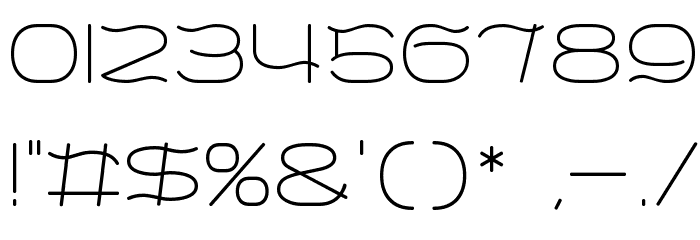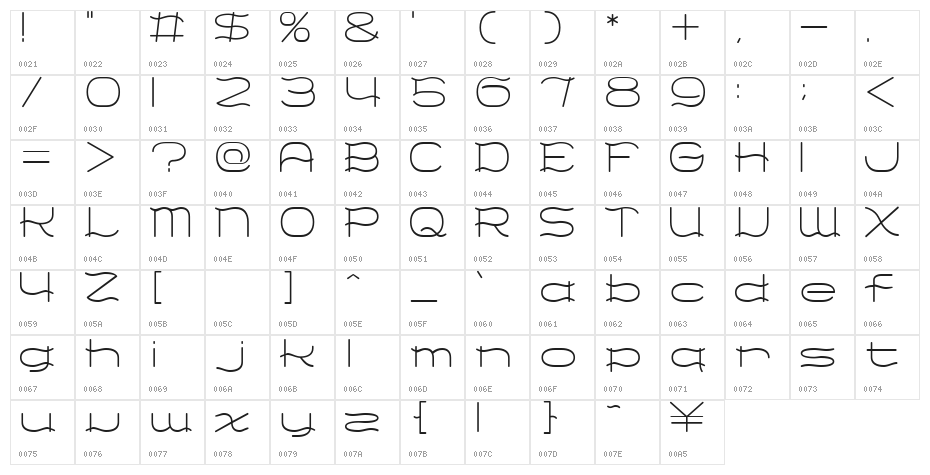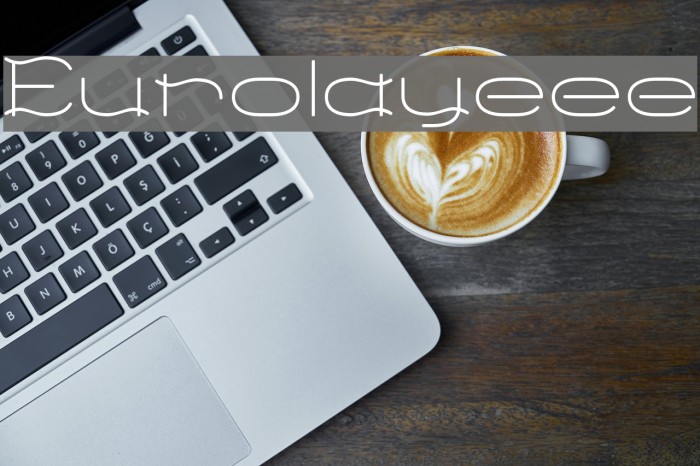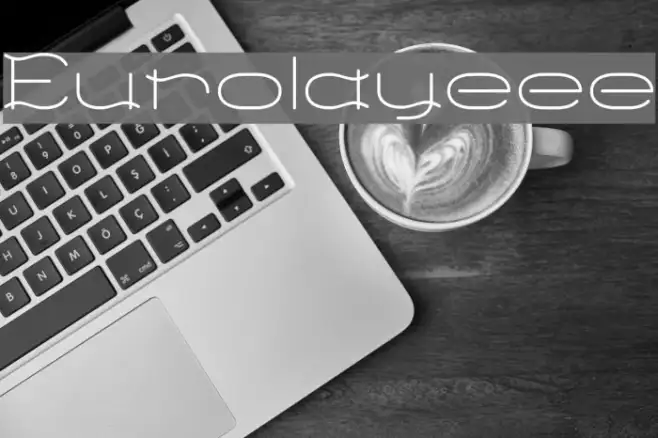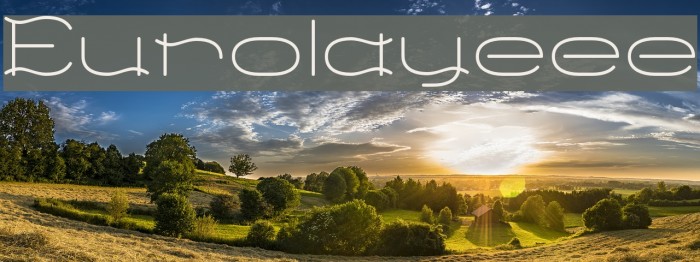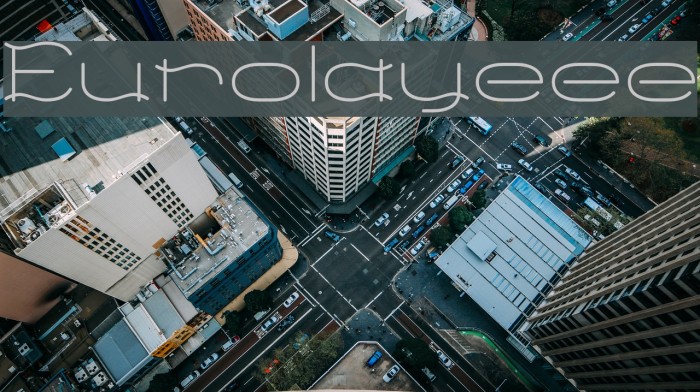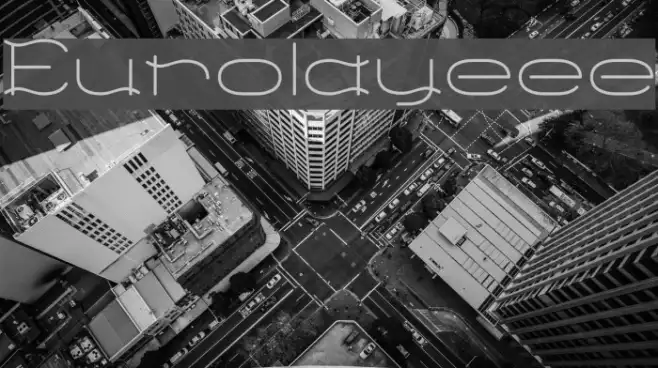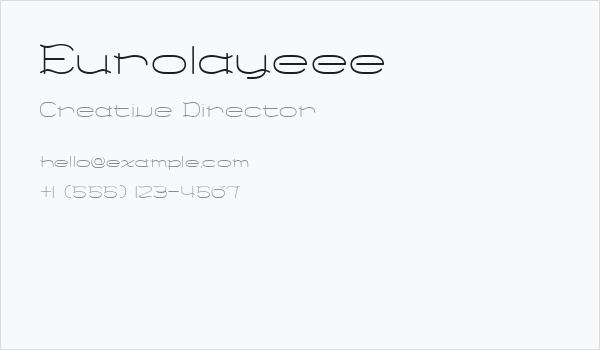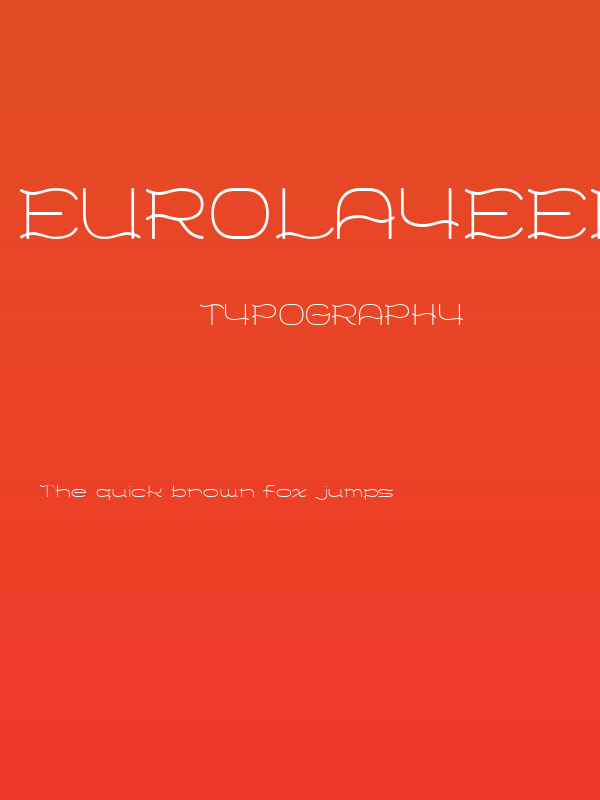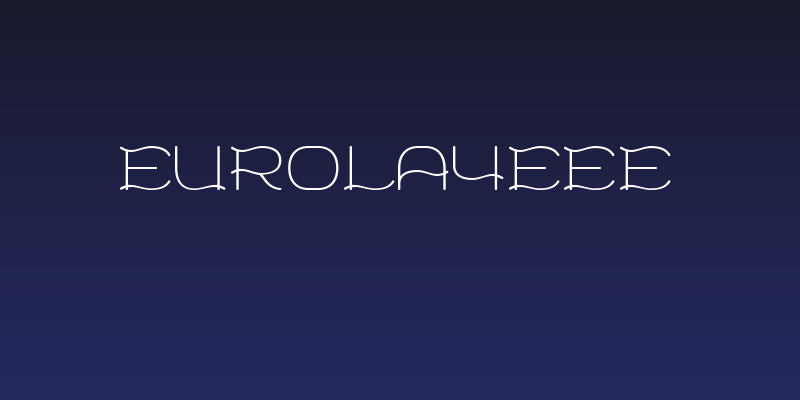
Eurolayeee Font
Eurolayeee Description
This font features a unique and modern design with thin, elongated strokes and a geometric structure. The characters are interconnected with subtle curves, giving it a futuristic and artistic appearance. The uppercase and lowercase letters maintain a consistent style, with a focus on symmetry and balance. Numbers and special characters are crafted with the same attention to detail, ensuring a cohesive look across all elements. The font's clean lines and minimalistic approach make it suitable for contemporary design projects.
| Use Case | Logos, Headlines, Digital Art |
| Proposed Projects | Ideal for branding, digital art, modern posters, and tech-related designs. |